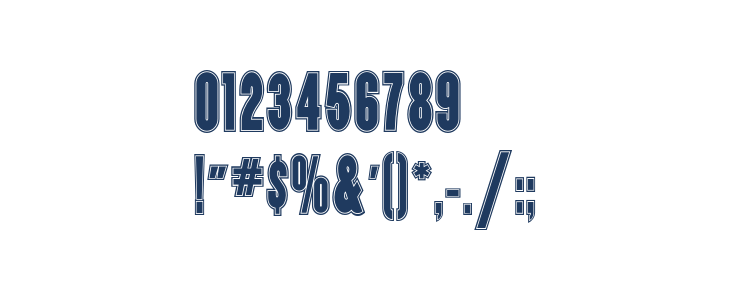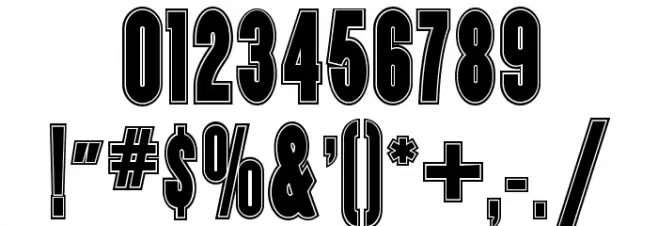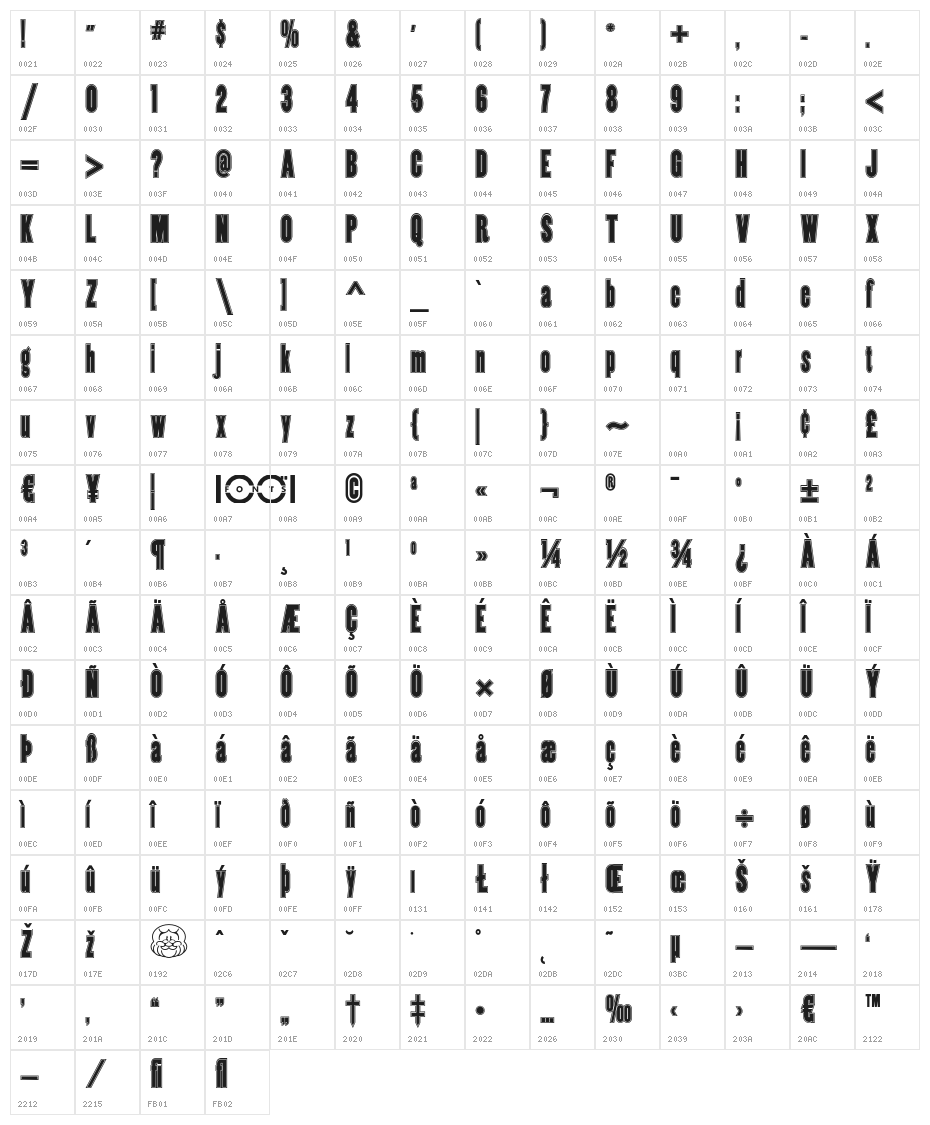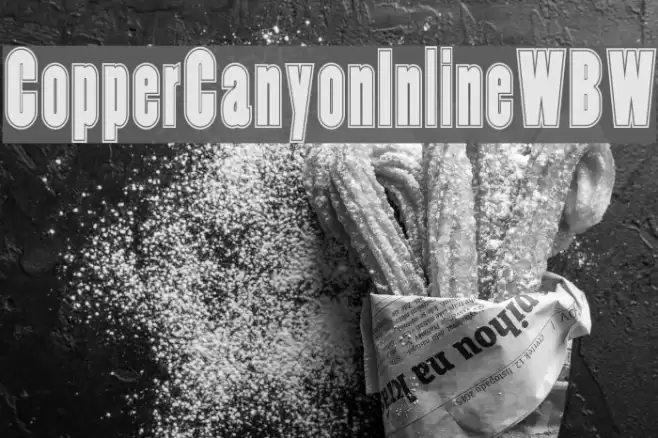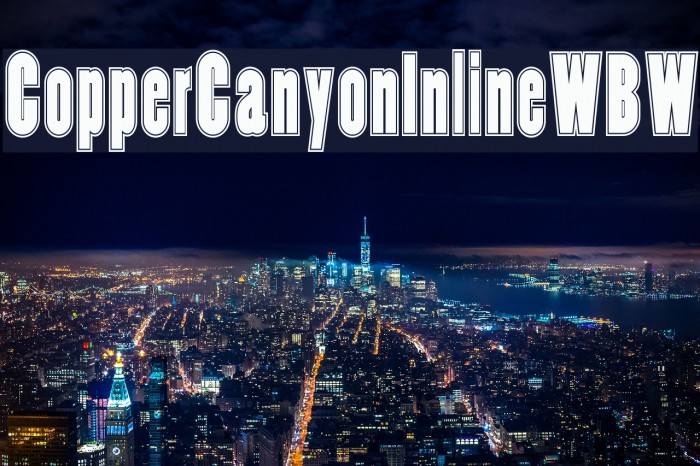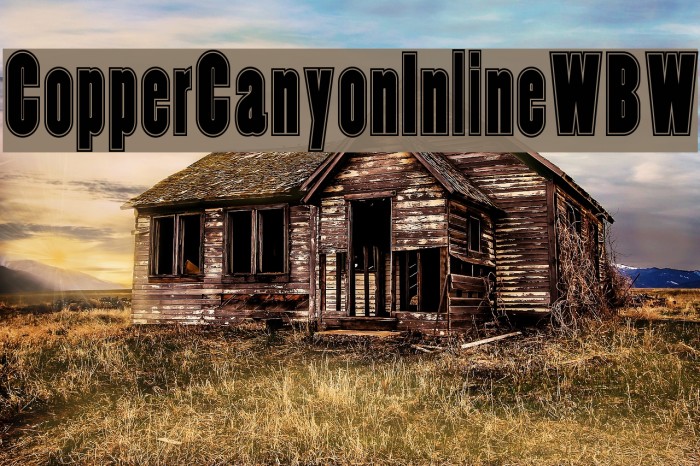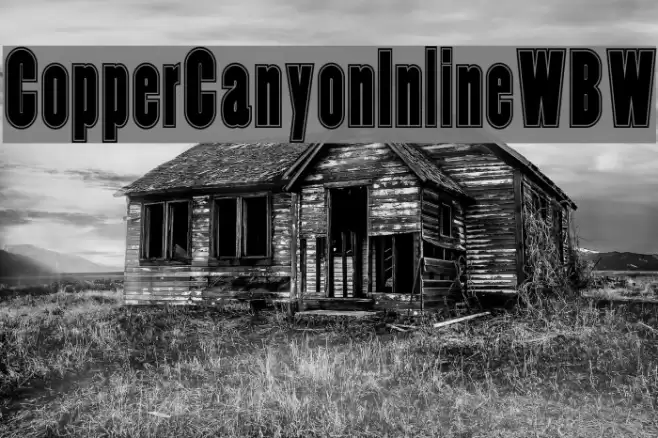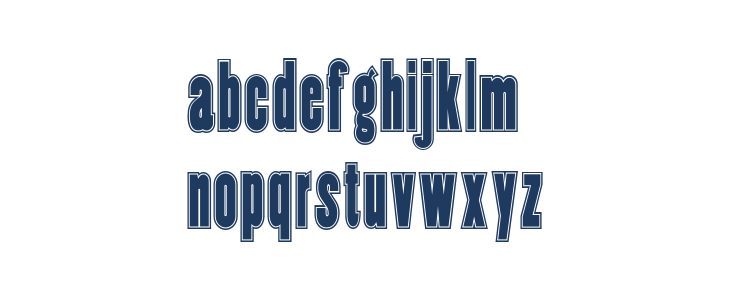
CopperCanyonInlineWBW Font
CopperCanyonInlineWBW Description
This font features bold, uppercase and lowercase letters with a distinct inline style, giving it a strong, impactful appearance. The characters are designed with a thick outer stroke and a thinner inner line, creating a striking contrast that enhances readability. The numbers and special characters follow the same design, ensuring consistency across all glyphs. The font's boldness and inline detail make it ideal for attention-grabbing headlines and titles. Its structured design is both modern and classic, suitable for a variety of design projects.
| Proposed Projects | Ideal for posters, logos, headlines, and branding materials where a bold statement is needed. |